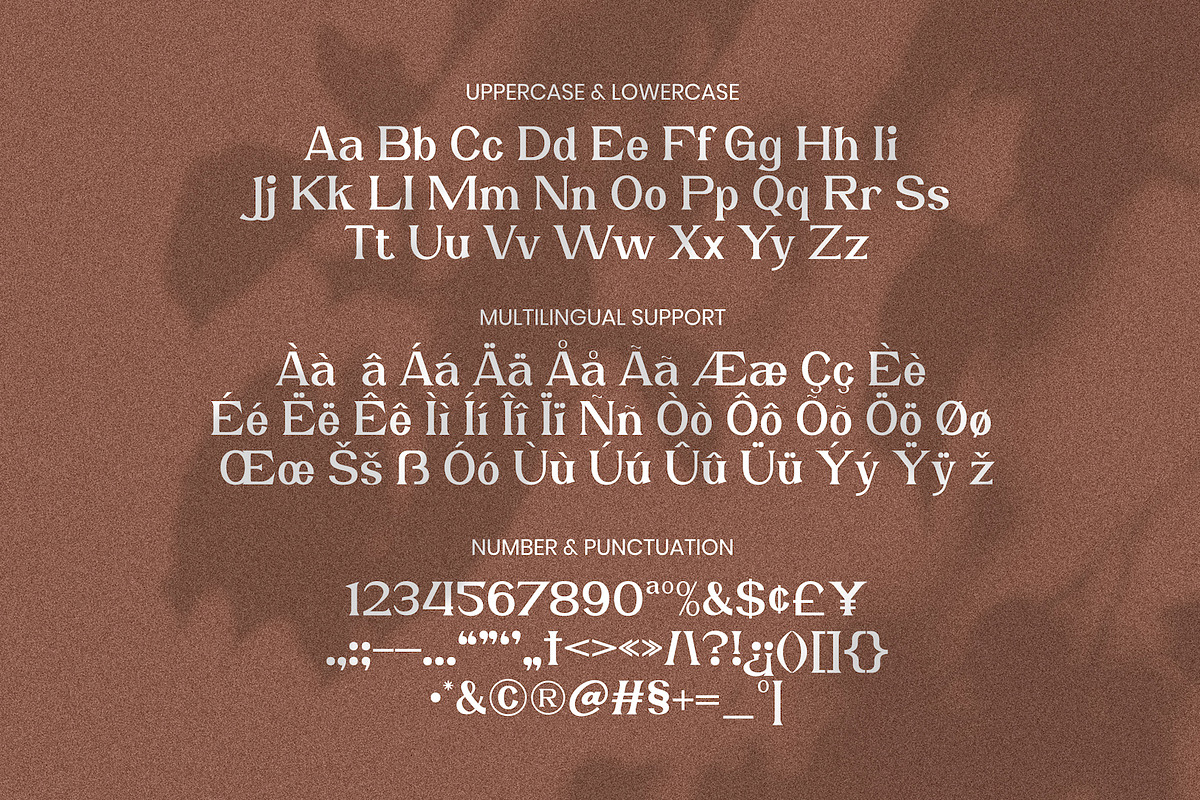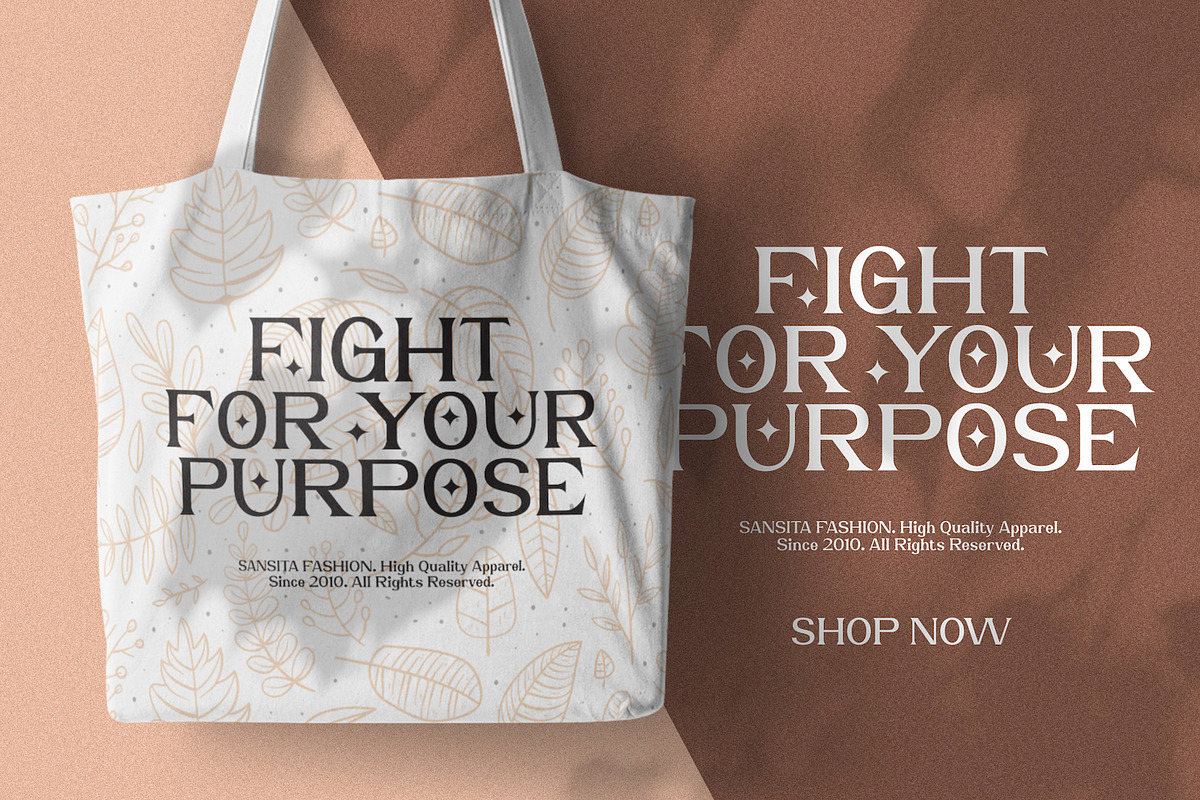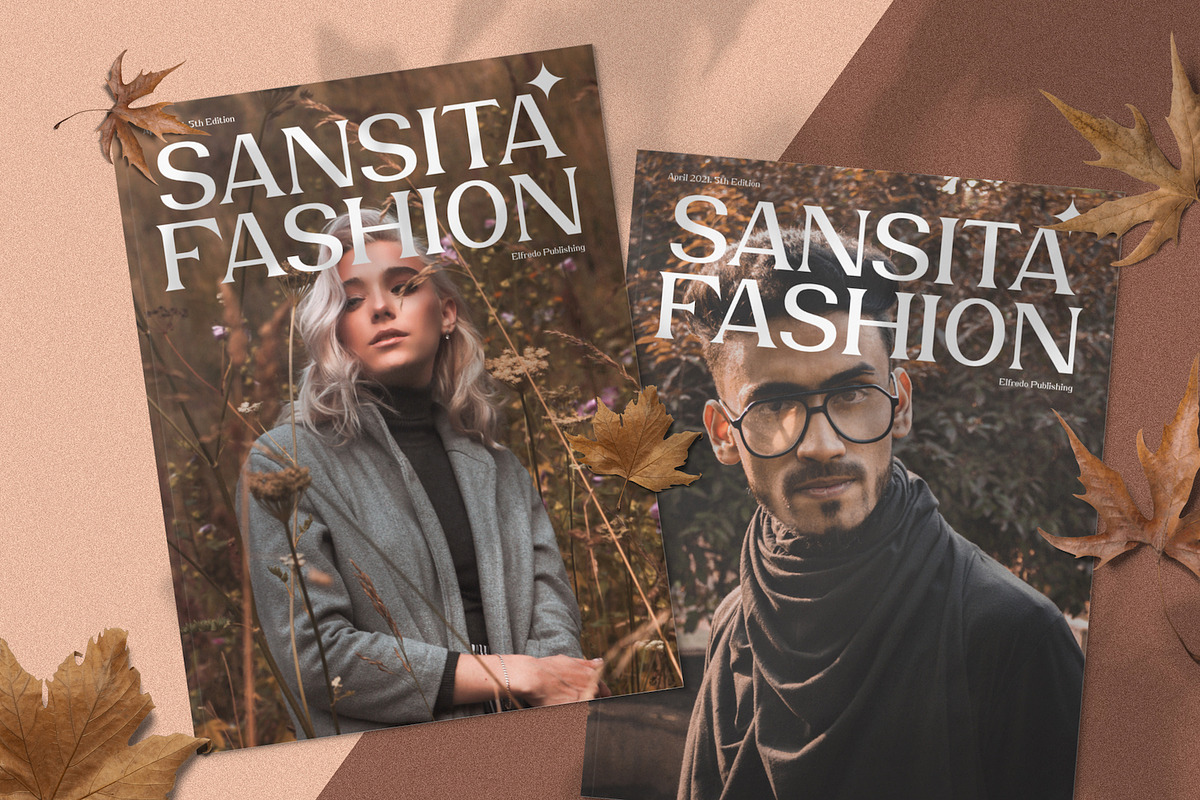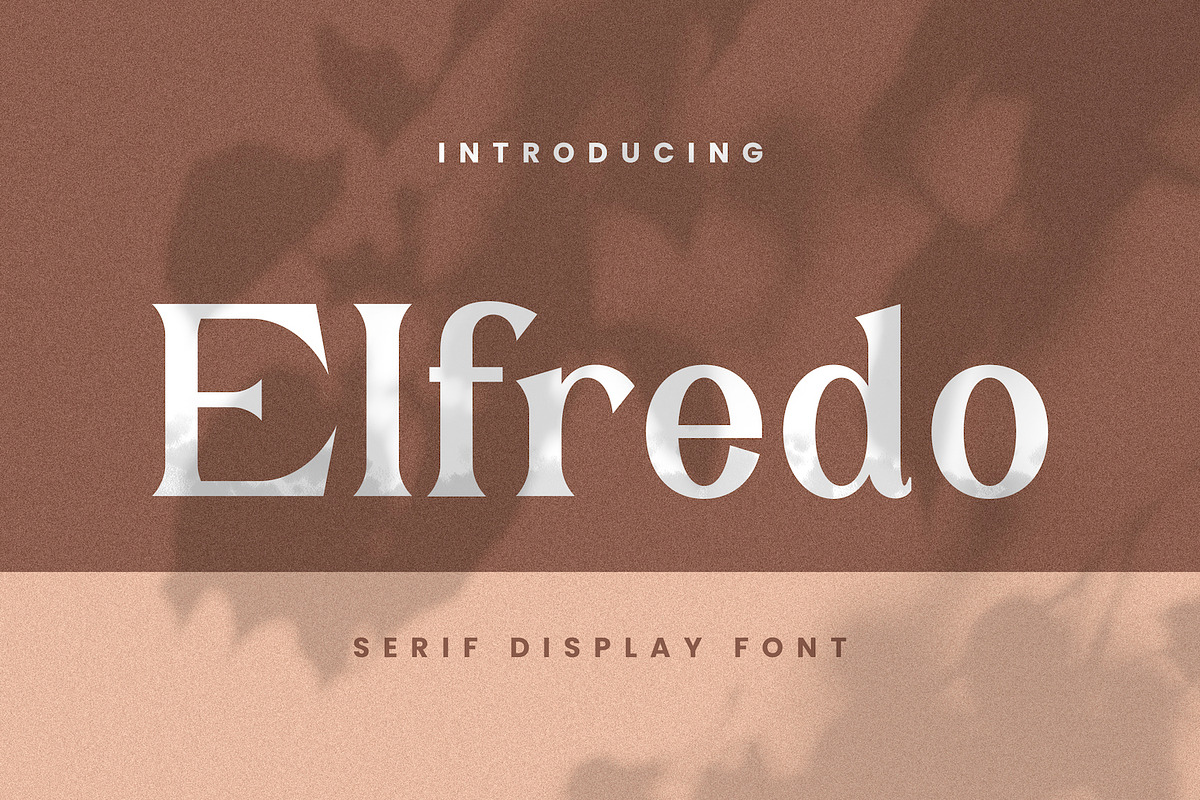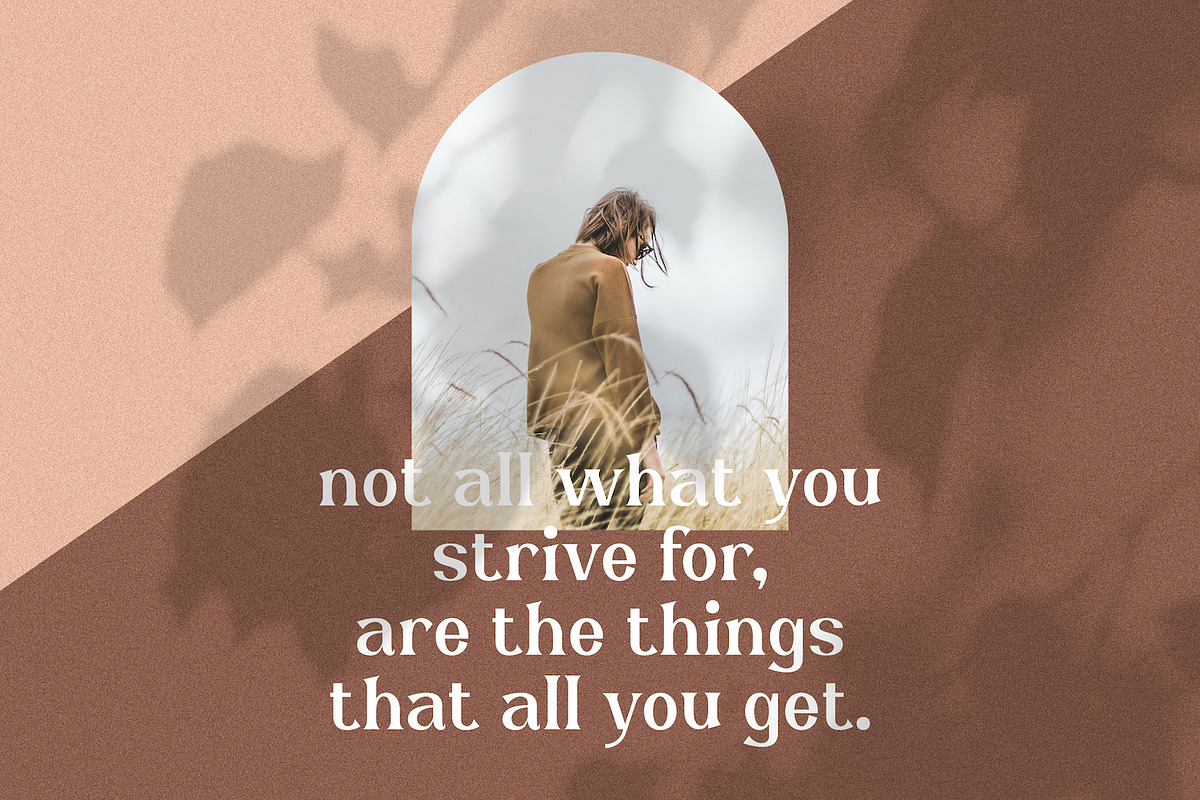
Elfredo - Sophisticated Serif
Elfredo is a sophisticated serif display typeface that blends timeless elegance with contemporary editorial styling. Designed with refined proportions, sharp wedge serifs, graceful curves, and distinctive letterforms, it delivers a luxurious and fashion forward aesthetic.
Ideal for branding, logos, magazine headlines, beauty packaging, luxury advertising, wedding stationery, social media graphics, book covers, posters, and premium lifestyle designs.
Ton of Glyphs
Uppercase and Lowecase Characters.
Numerals and Punctuations.
Alternates and Ligatures.
Multilingual Support.